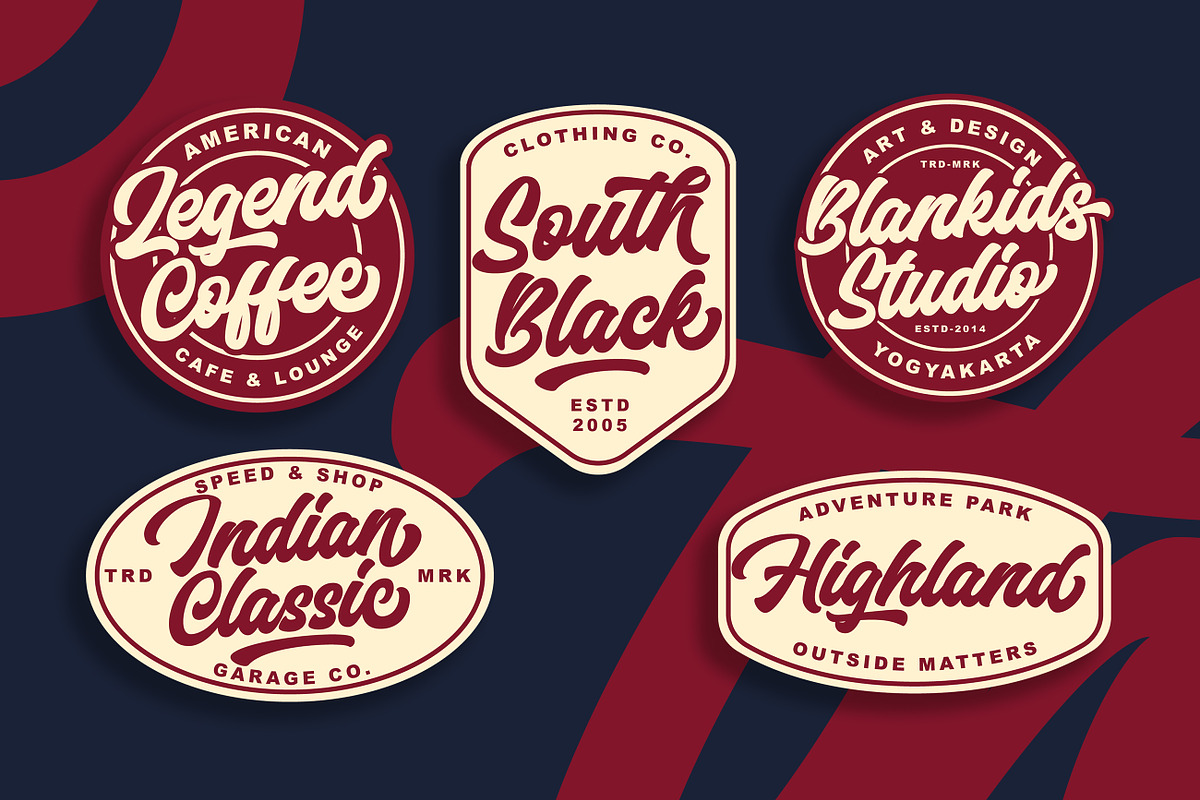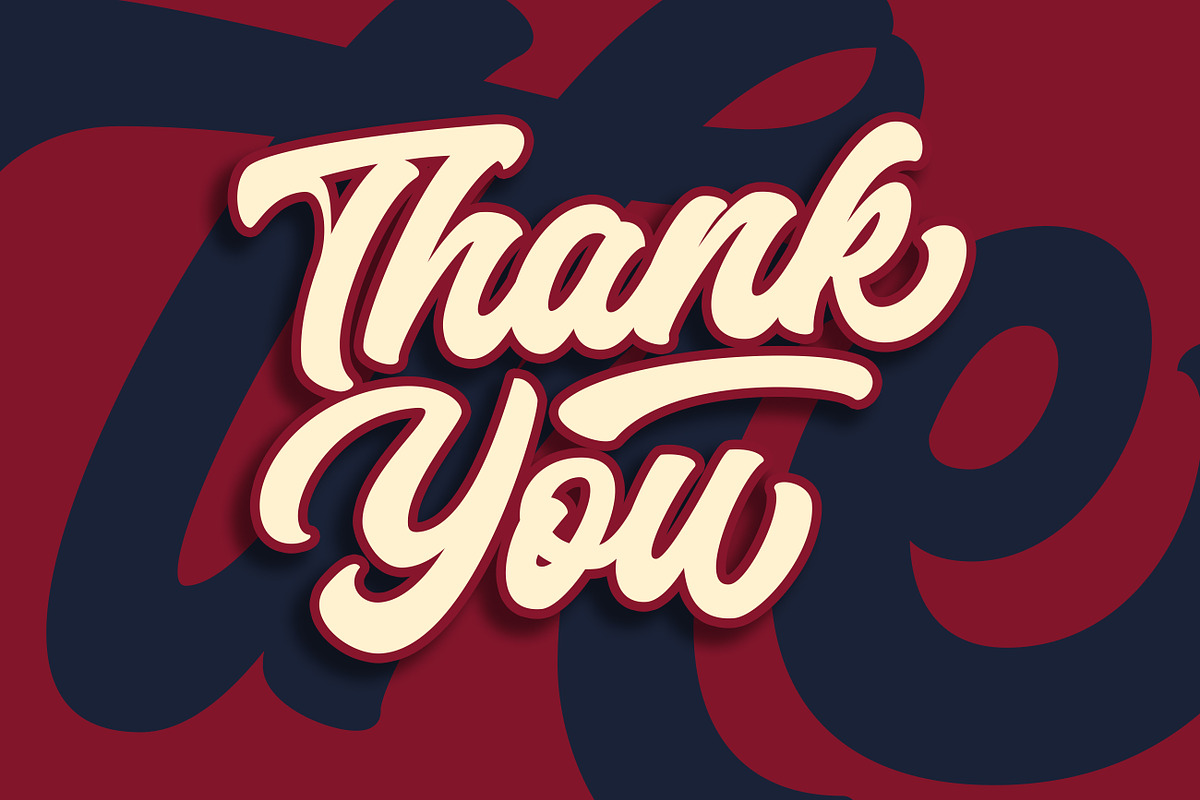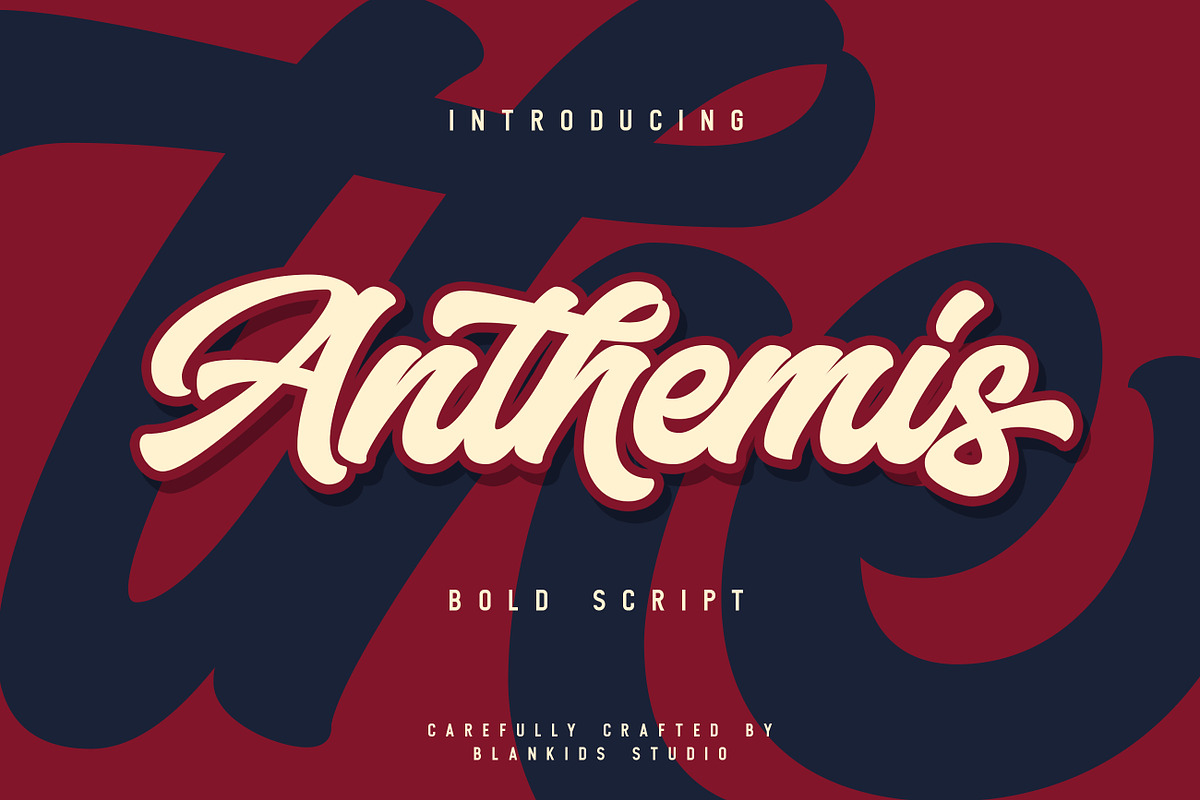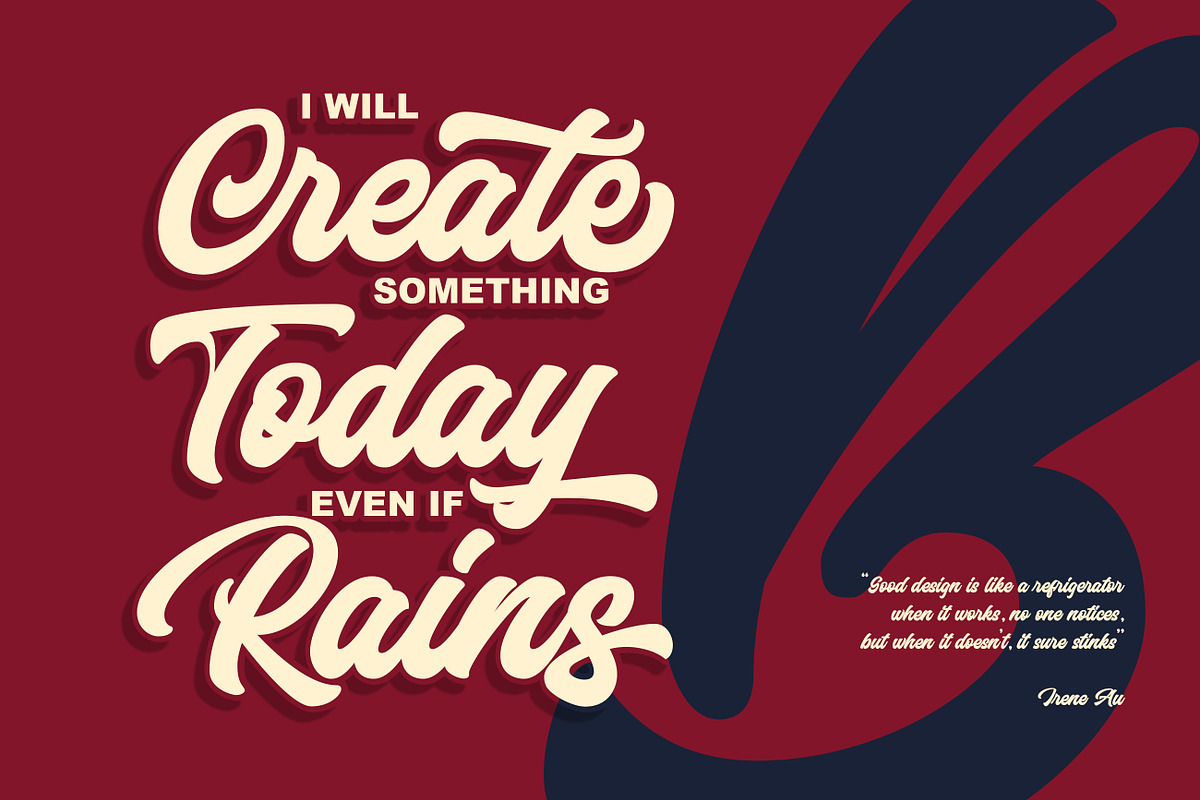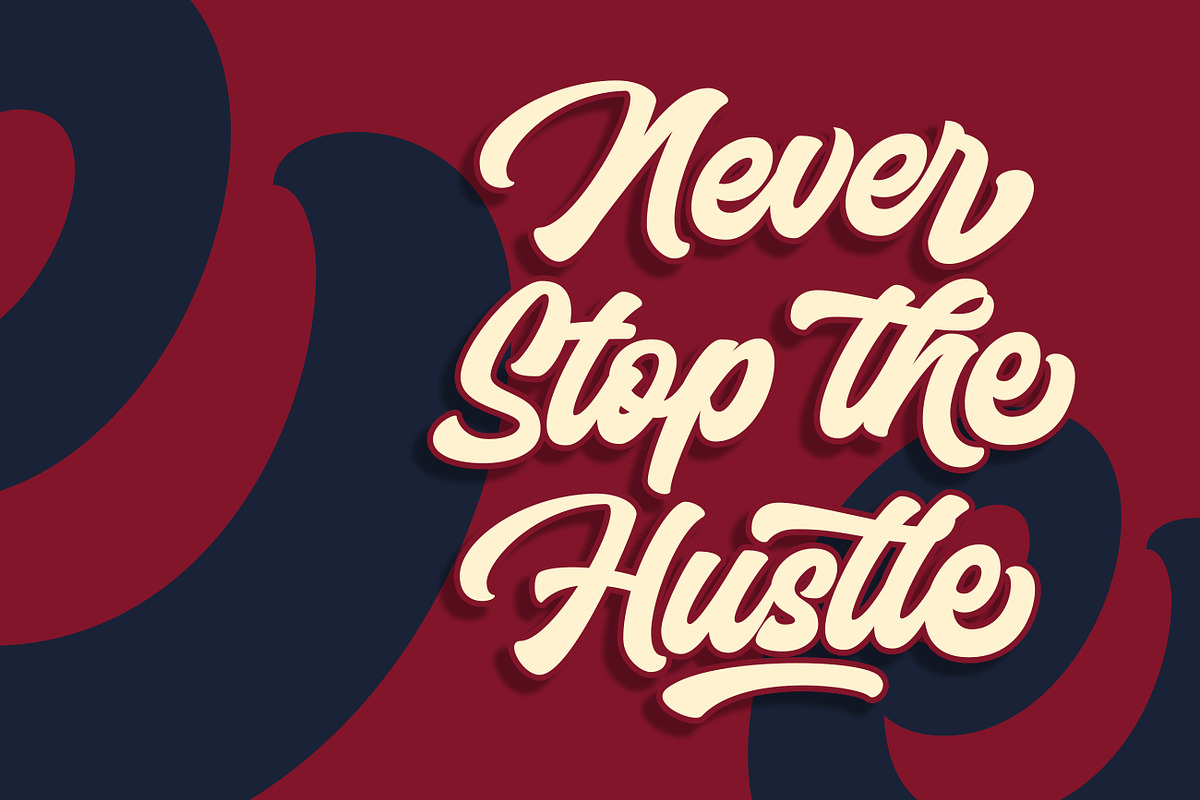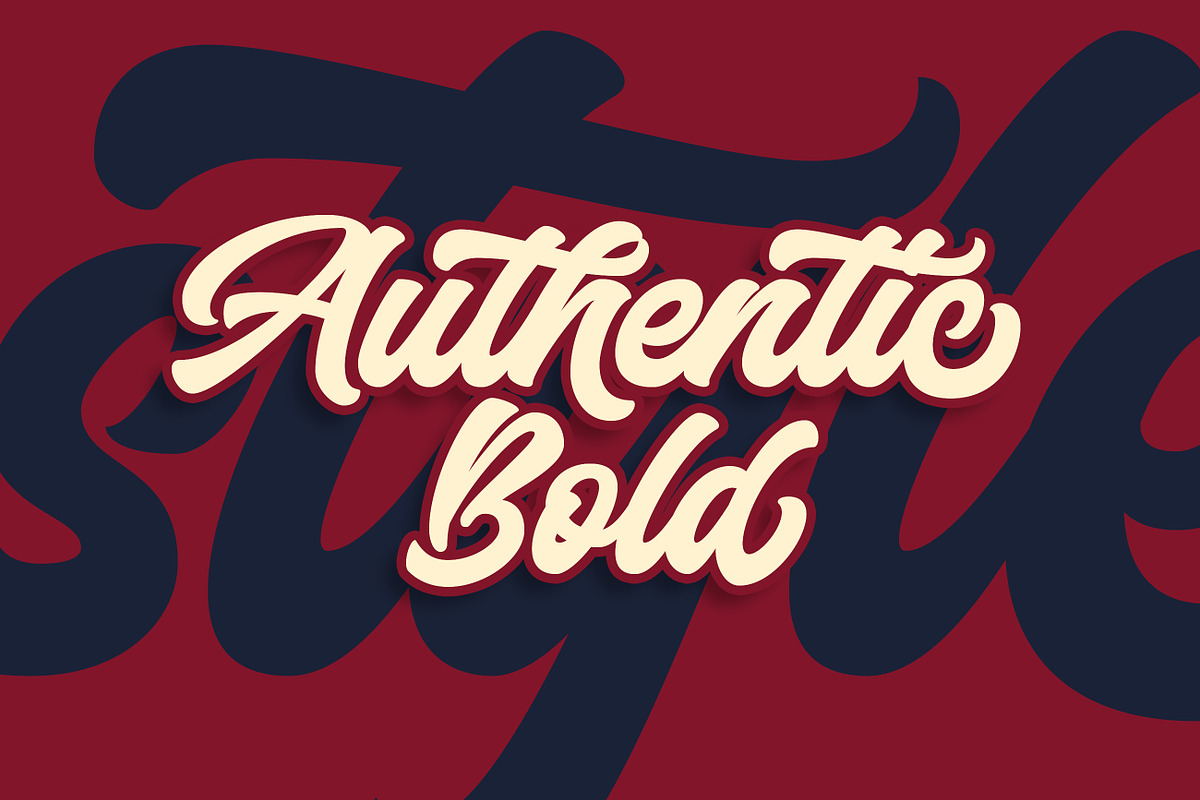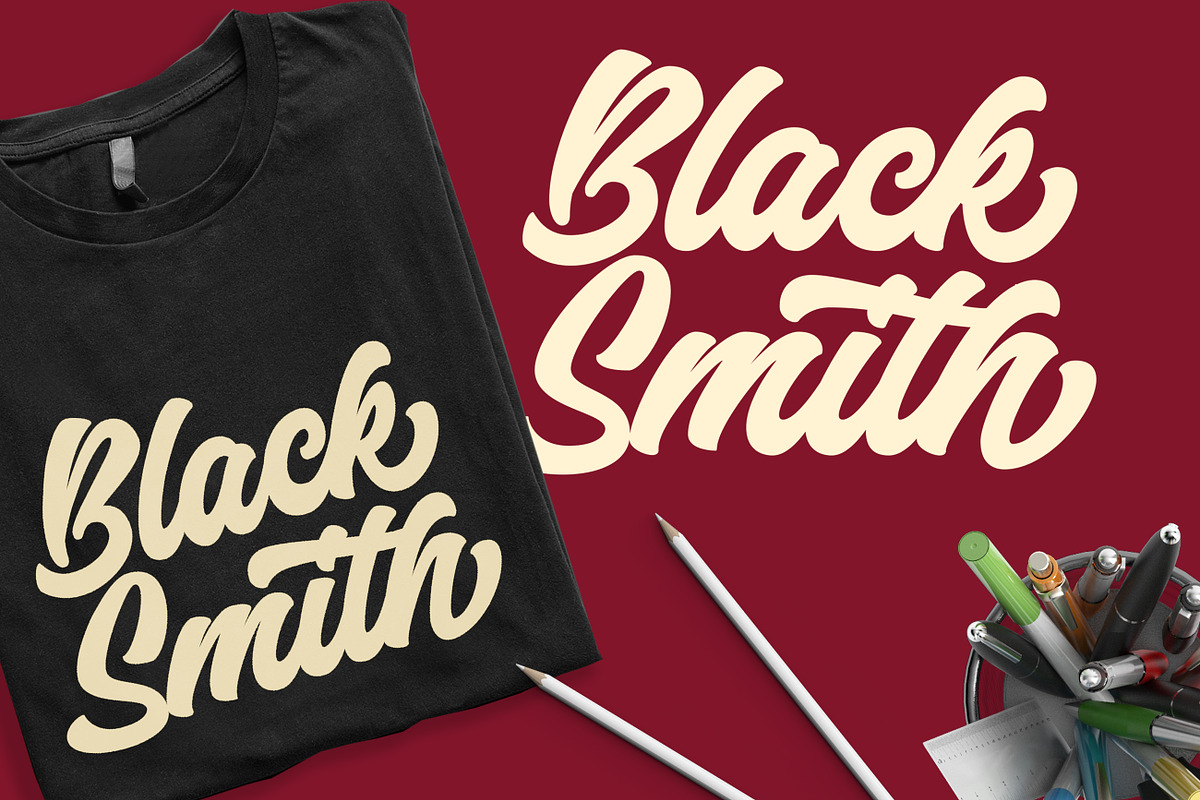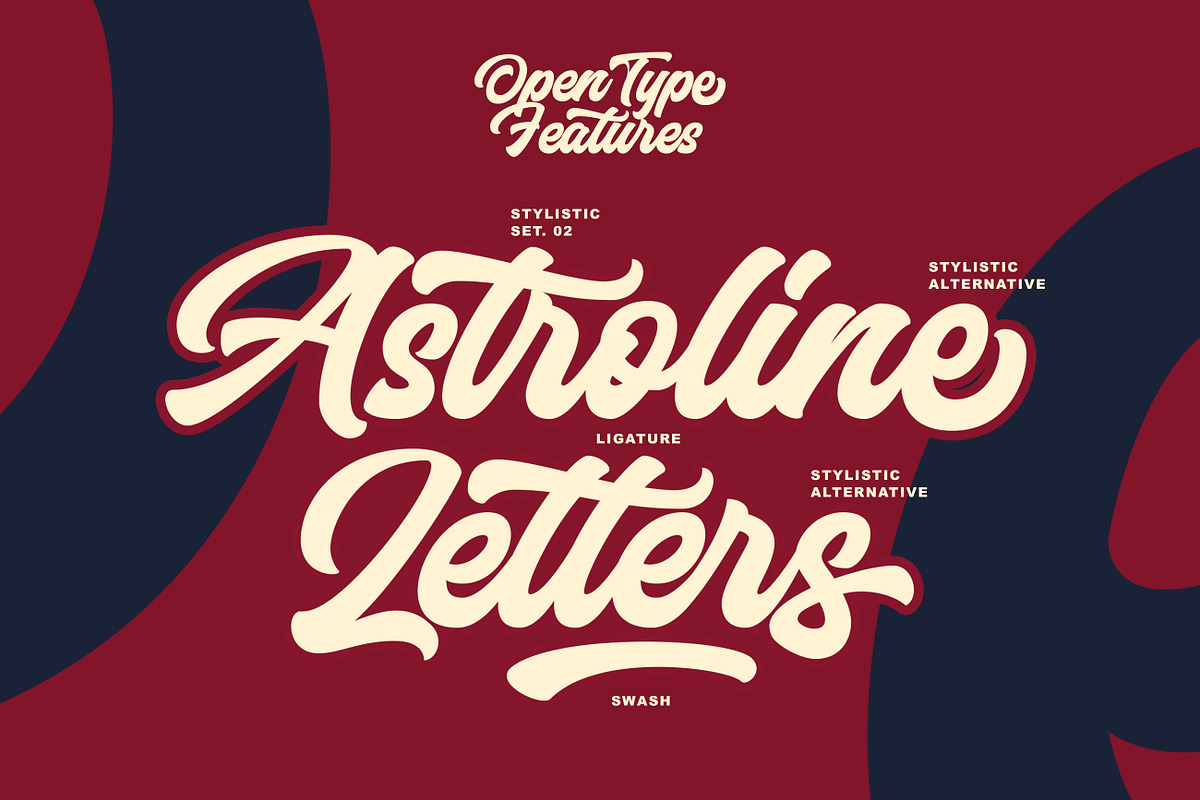
Anthemis Bold Script Font
ANTHEMIS BOLD SCRIPT SPECIAL FOR BRANDING DESIGN
Introducing of our new product the name is Anthemis, the bold script font inspired by Bold hand lettering style, Anthemis font is good for branding logotype, Packaging, poster, headline, book cover, Flyer, t-shirt design and any more.
Anthemis have many alternative character and have opentype features like a stylistic alternatice, stylistic set, ligature and swash so you can mix and match like a you want.